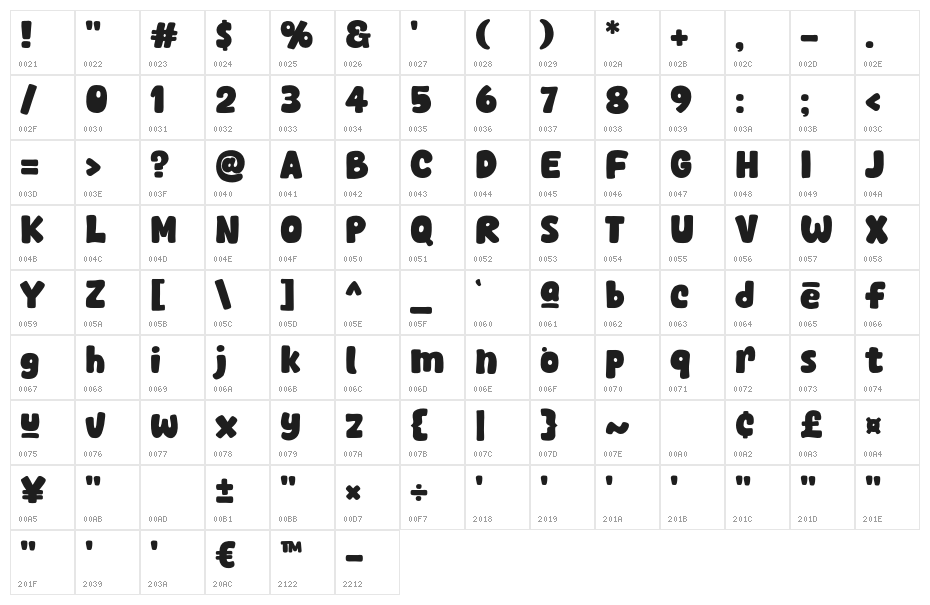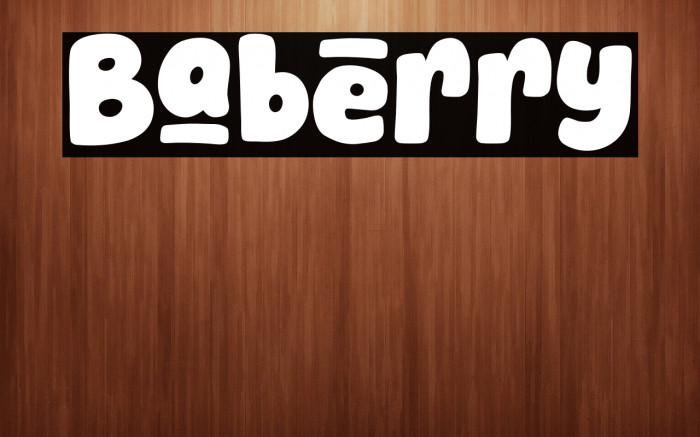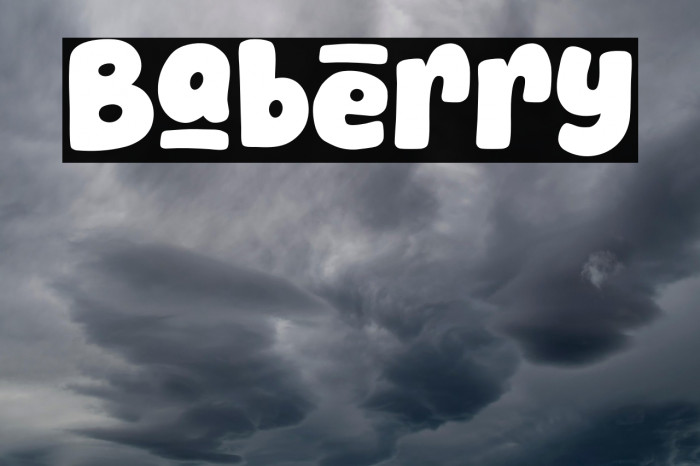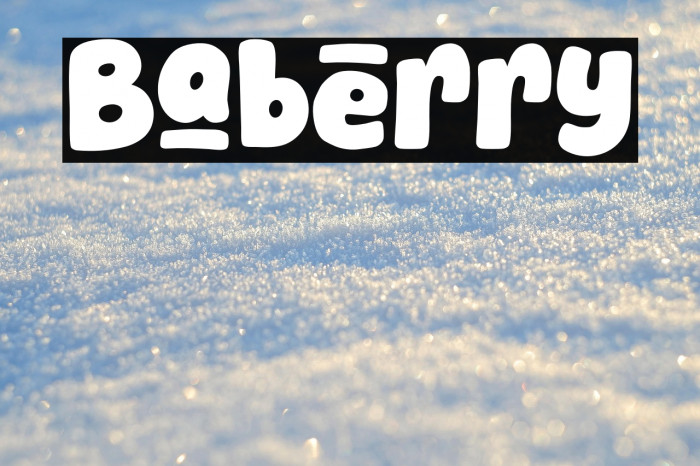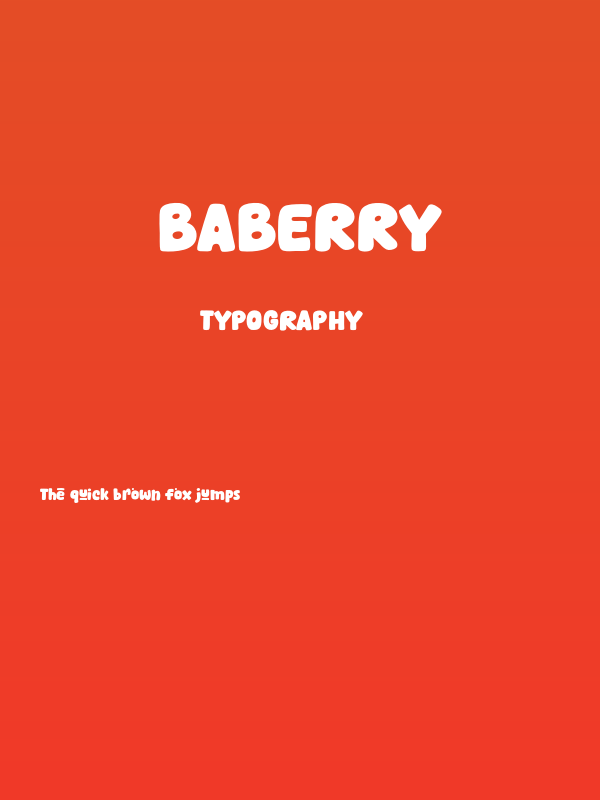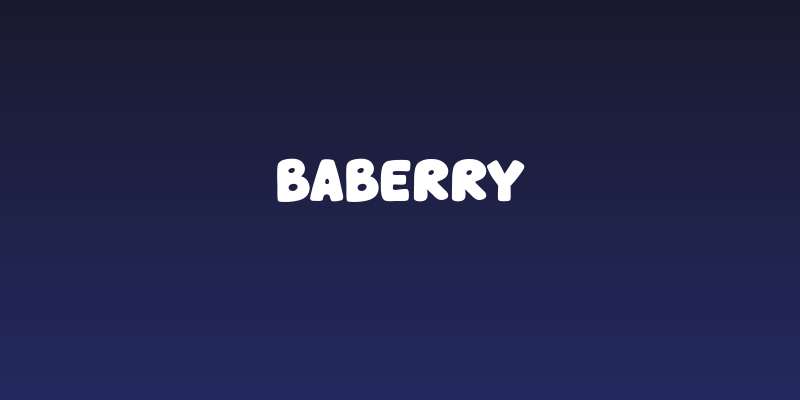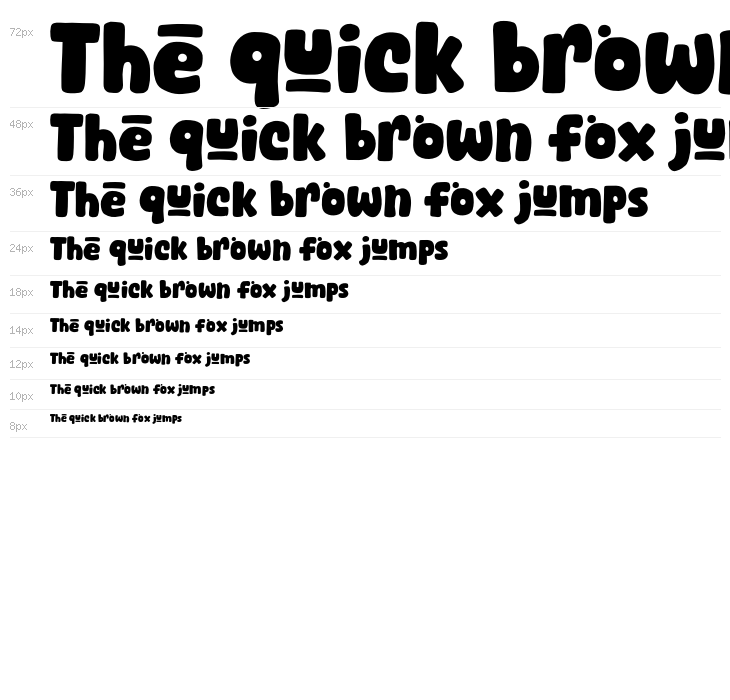
Baberry Font
Baberry Description
This playful and bold font features rounded, chunky letters that exude a sense of fun and creativity. The characters are designed with a consistent thickness, giving them a uniform and cohesive look. The uppercase and lowercase letters maintain a similar width, contributing to a balanced appearance. The numbers and special characters are equally bold, ensuring they stand out in any design. This font's unique style is perfect for projects that require a touch of whimsy and boldness, making it ideal for children's books, playful branding, or eye-catching headlines.
| Overall Style | Playful, Creative, Bold |
| Proposed Projects | Children's books, playful branding, eye-catching headlines, posters, and packaging. |